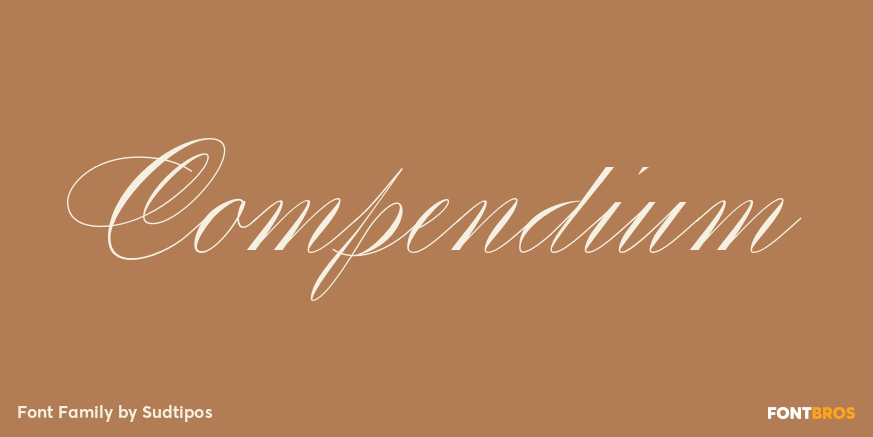
Compendium
About Compendium
Compendium is a sequel to my Burgues font from 2007. Actually it is more like a prequel to Burgues. Before Louis Madarasz awed the American Southeast with his disciplined corners and wild hairlines, Platt Rogers Spencer, up in Ohio, had laid down a style…